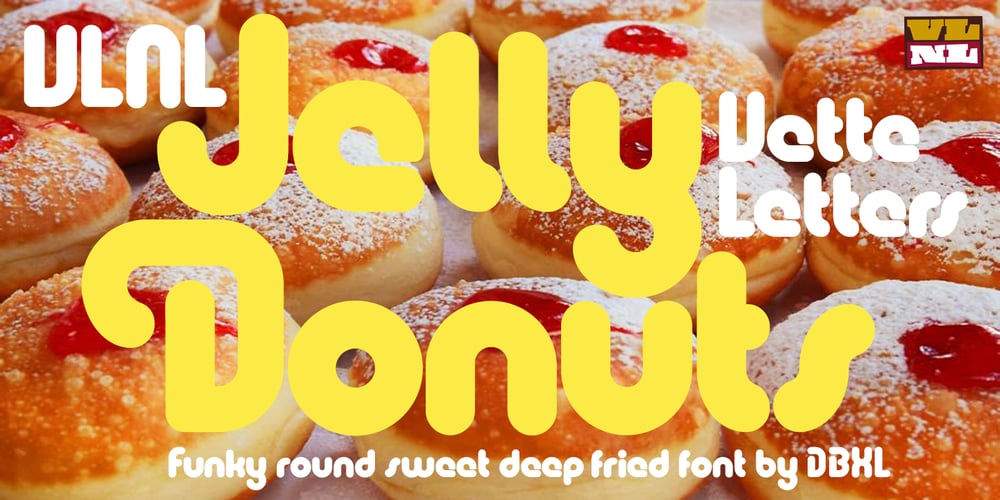
VLNL Jelly Donuts Font Family was designed by Donald Beekman and published by VetteLetters. VLNL Jelly Donuts contains 1 styles and family package options. VLNL Jelly Donuts’ Jelly Donuts is the round sibling of VLNL Donuts. Equally funky, just round. Like its counterpart Jelly Donuts is heavily infused by hip 1970s geometric fonts like Blippo, Pump and ITC Bauhaus. It nonetheless has both feet in this modern day and age. Meticulously designed and tightly spaced, VLNL Jelly Donuts is very suitable for logos, headlines and music artwork. We especially recommend using it on big 12″ album covers. VLNL Jelly Donuts is deep fried, filled with cream, custard or jam, and ometimes glazed or covered in a variety of sweetness: sprinkles, cinnamon, coconut, chopped peanuts, powdered sugar or maple syrup. As a very sweet and saturated snack should, VLNL Jelly Donuts is fitted with a full set of alternate swoosh caps that can be deployed to liven up your already ‘out there’ designs. You can’t get any more funky than this.